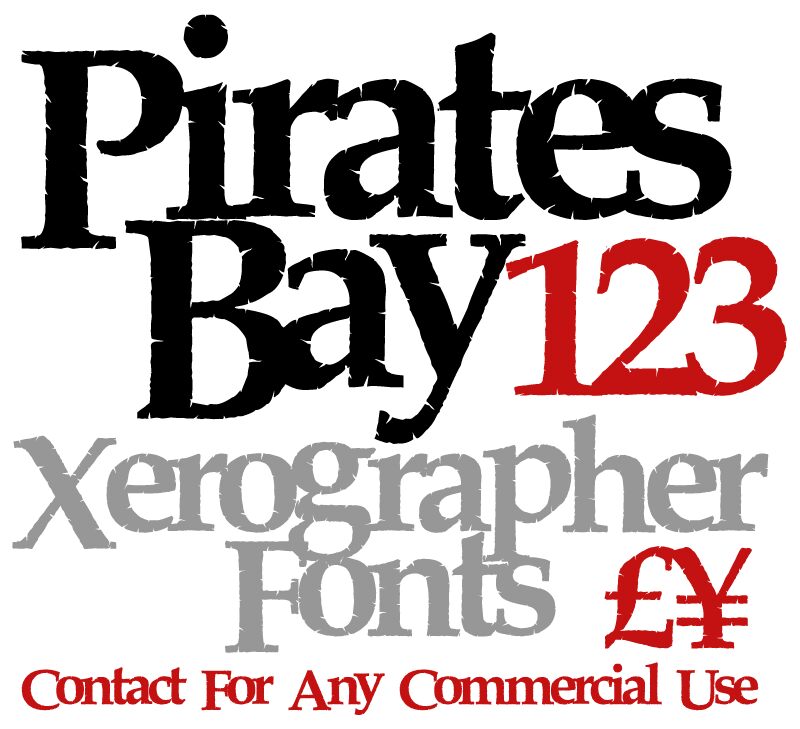
Pirates Bay from Xerographer Fonts is a free eroded serif display font with tall, broad letters and strong thick-to-thin contrast. Its ragged surface feels worn into the letterforms rather than sprinkled on afterward. Its long serifs retain a formal, old-print skeleton.
Designers handling maritime adventure and period entertainment can use it for game graphics, book covers, and event posters, since the battered finish suggests weathered broadsides. Novelty rum packaging also suits the same pirate-themed market.
PiratesBay font contains extra euro characters.